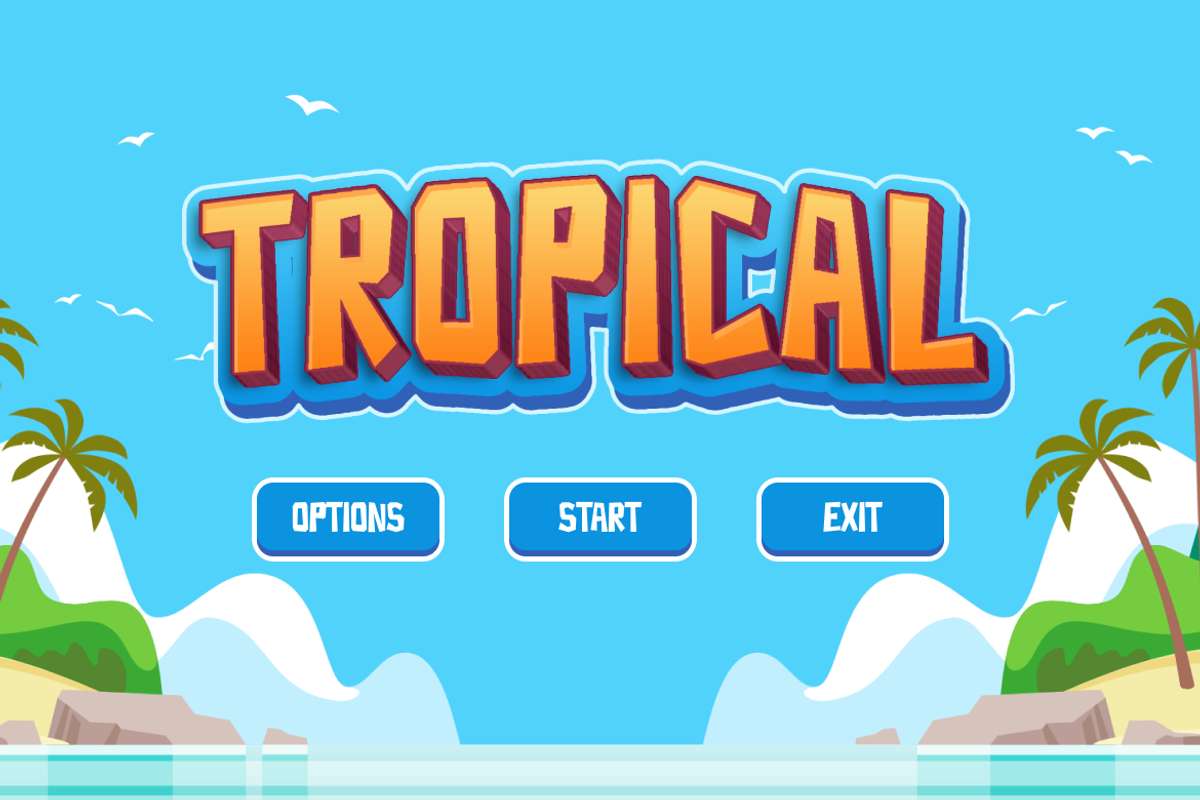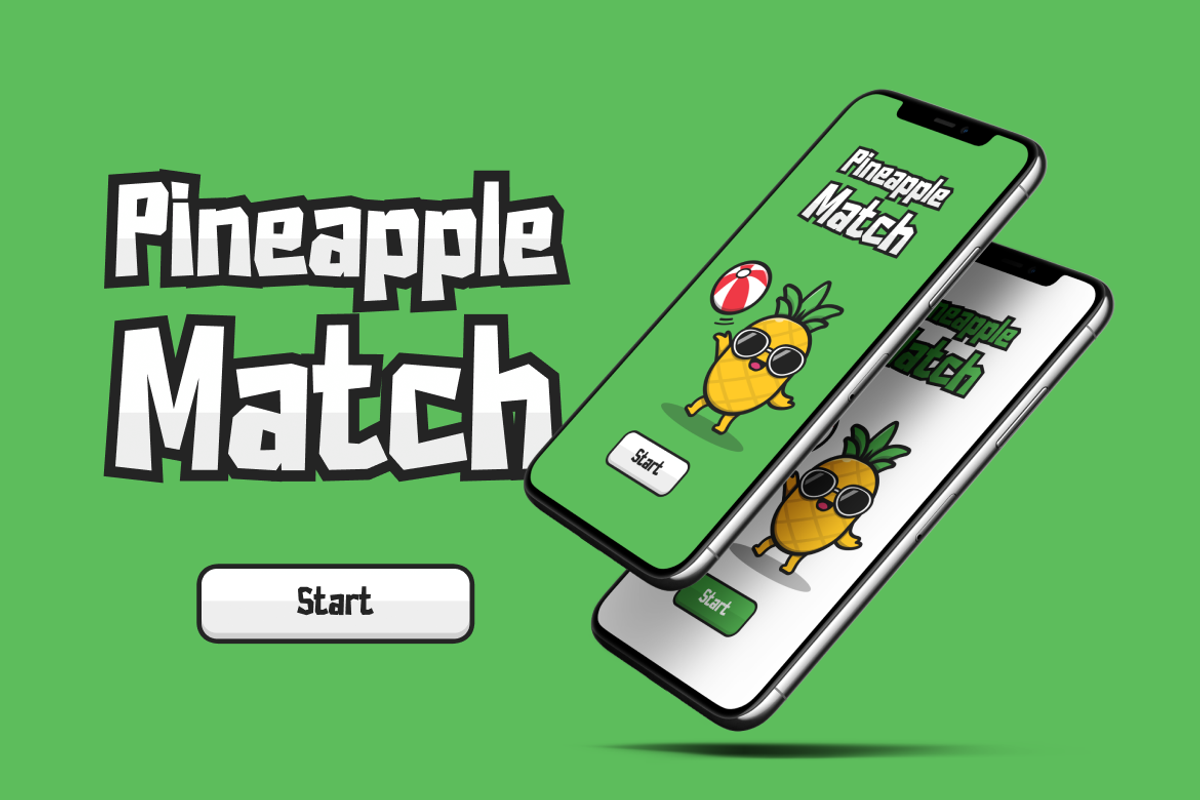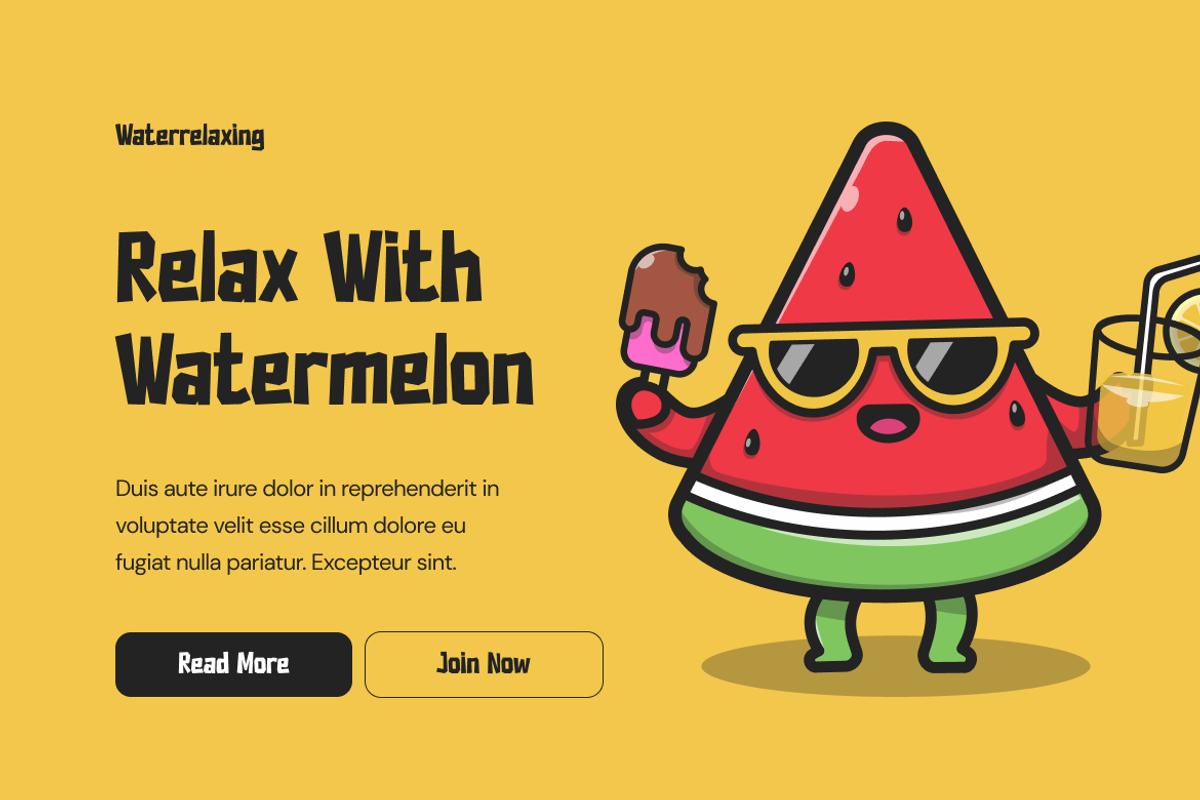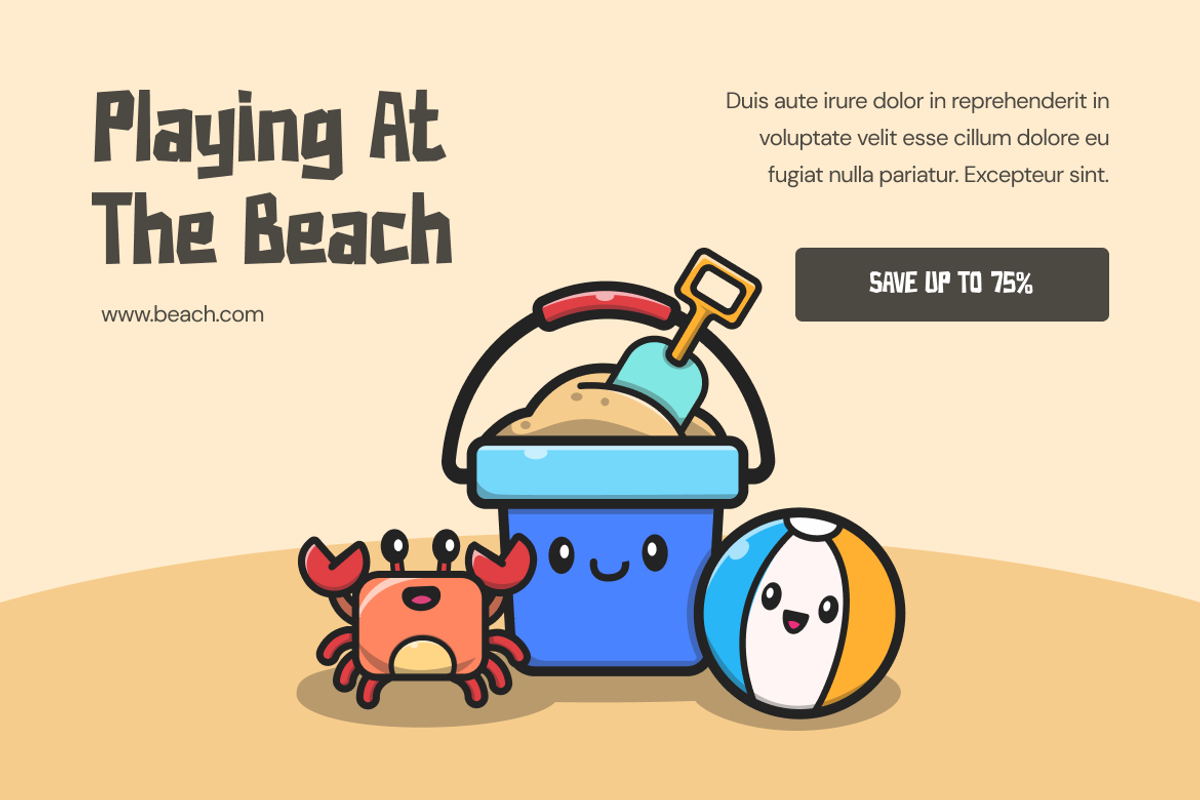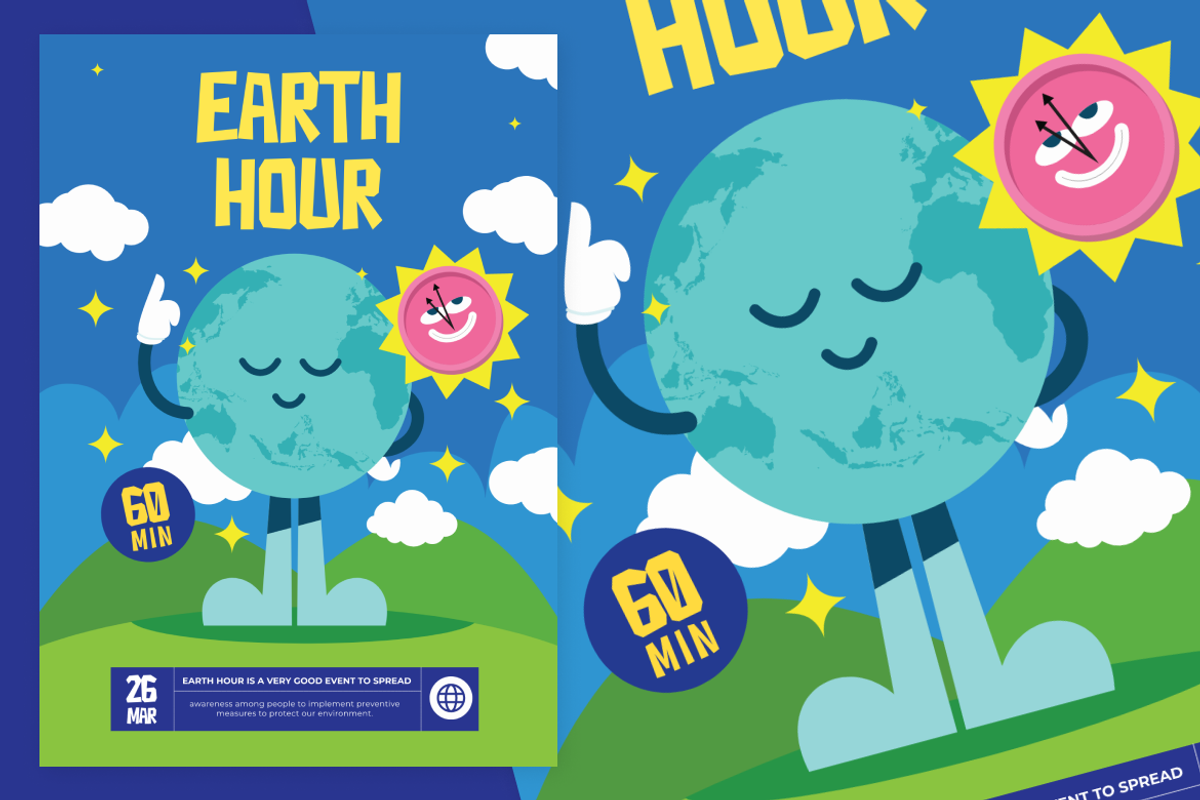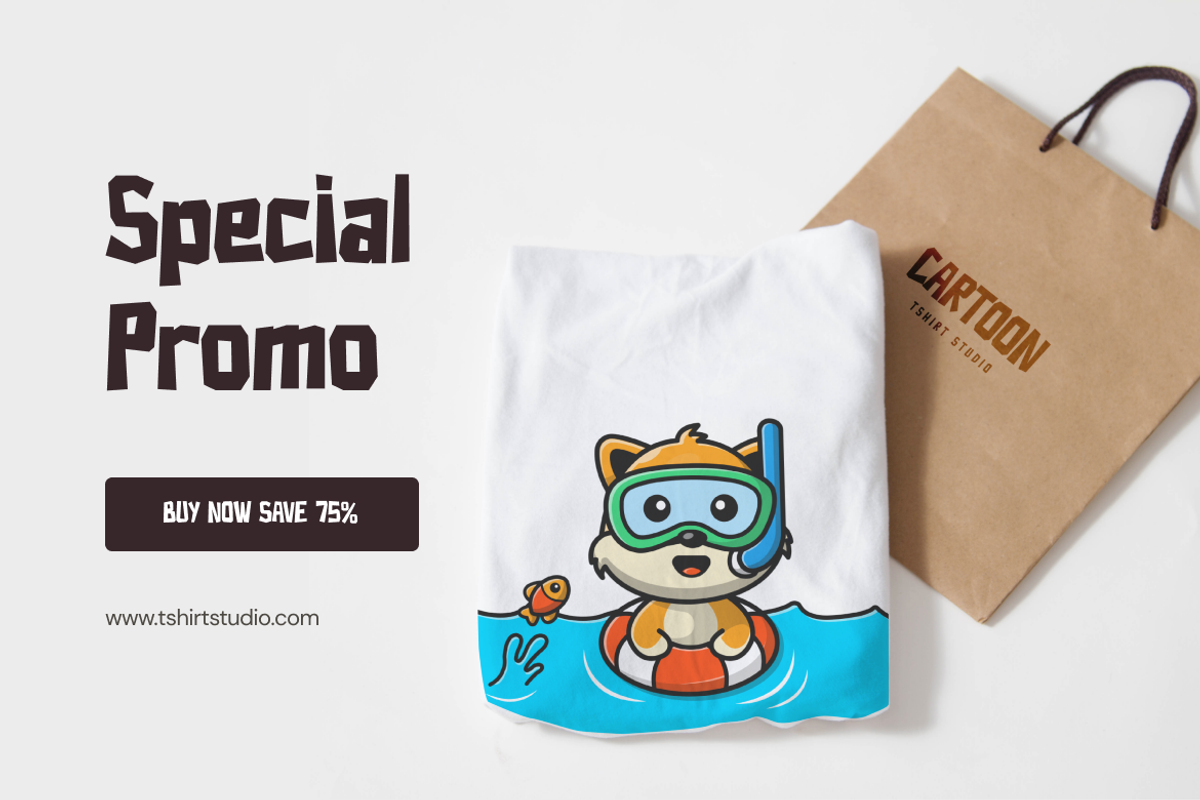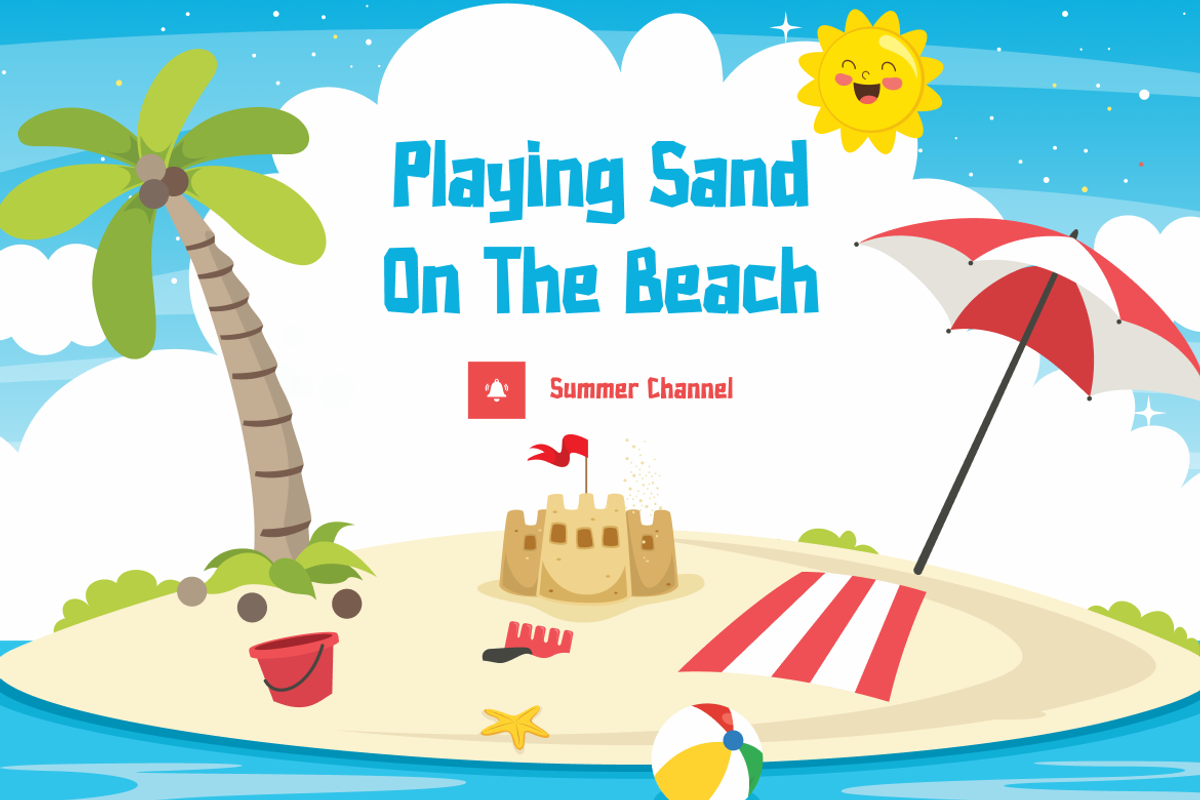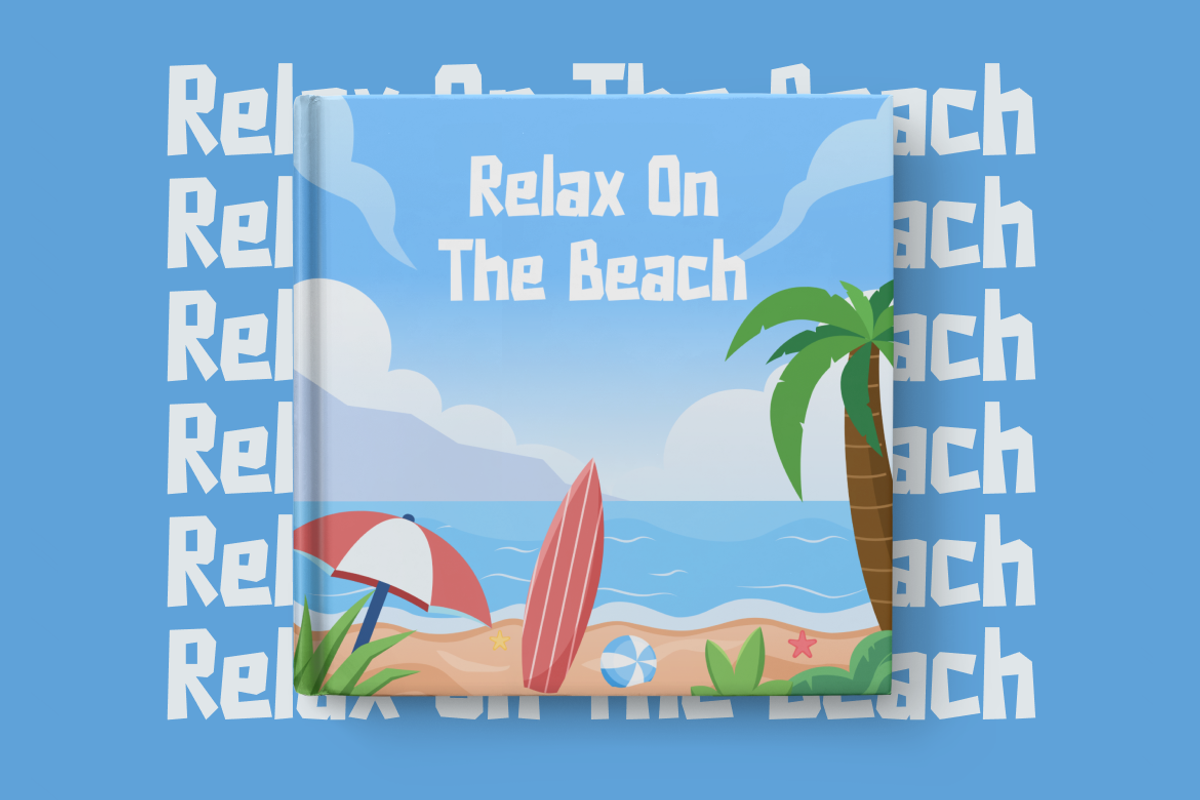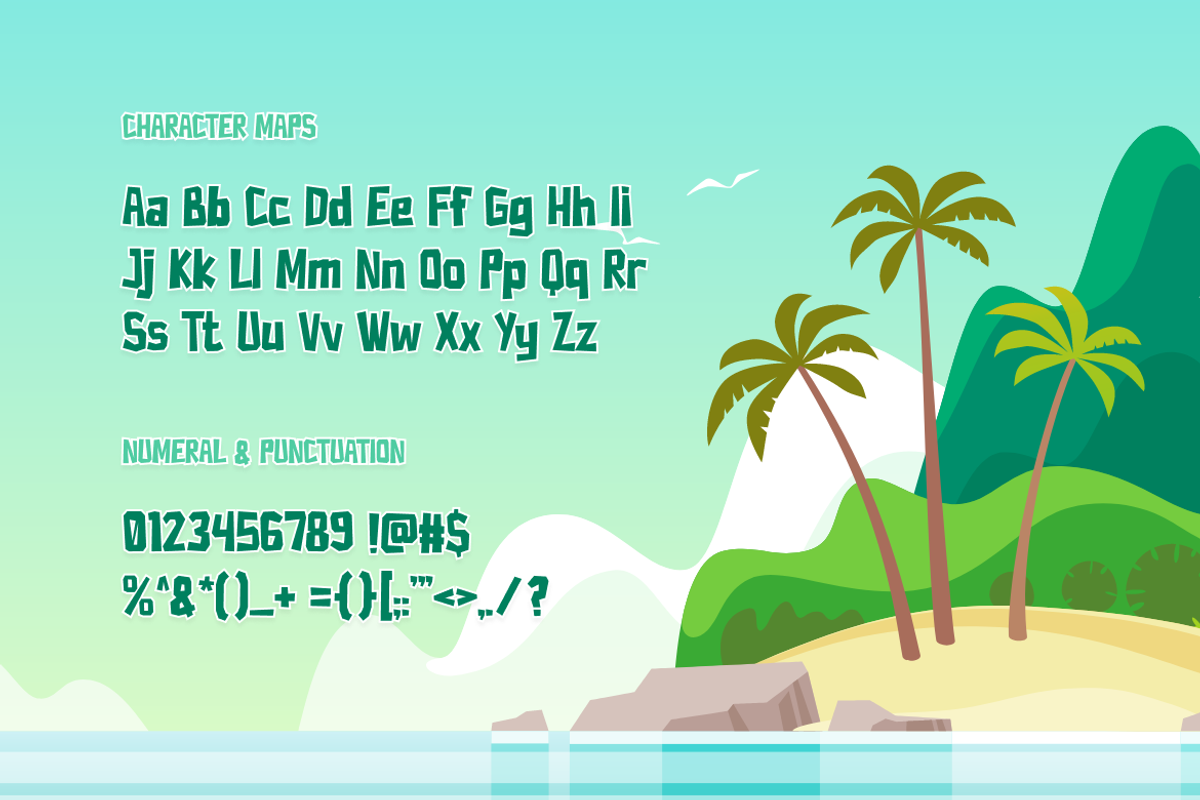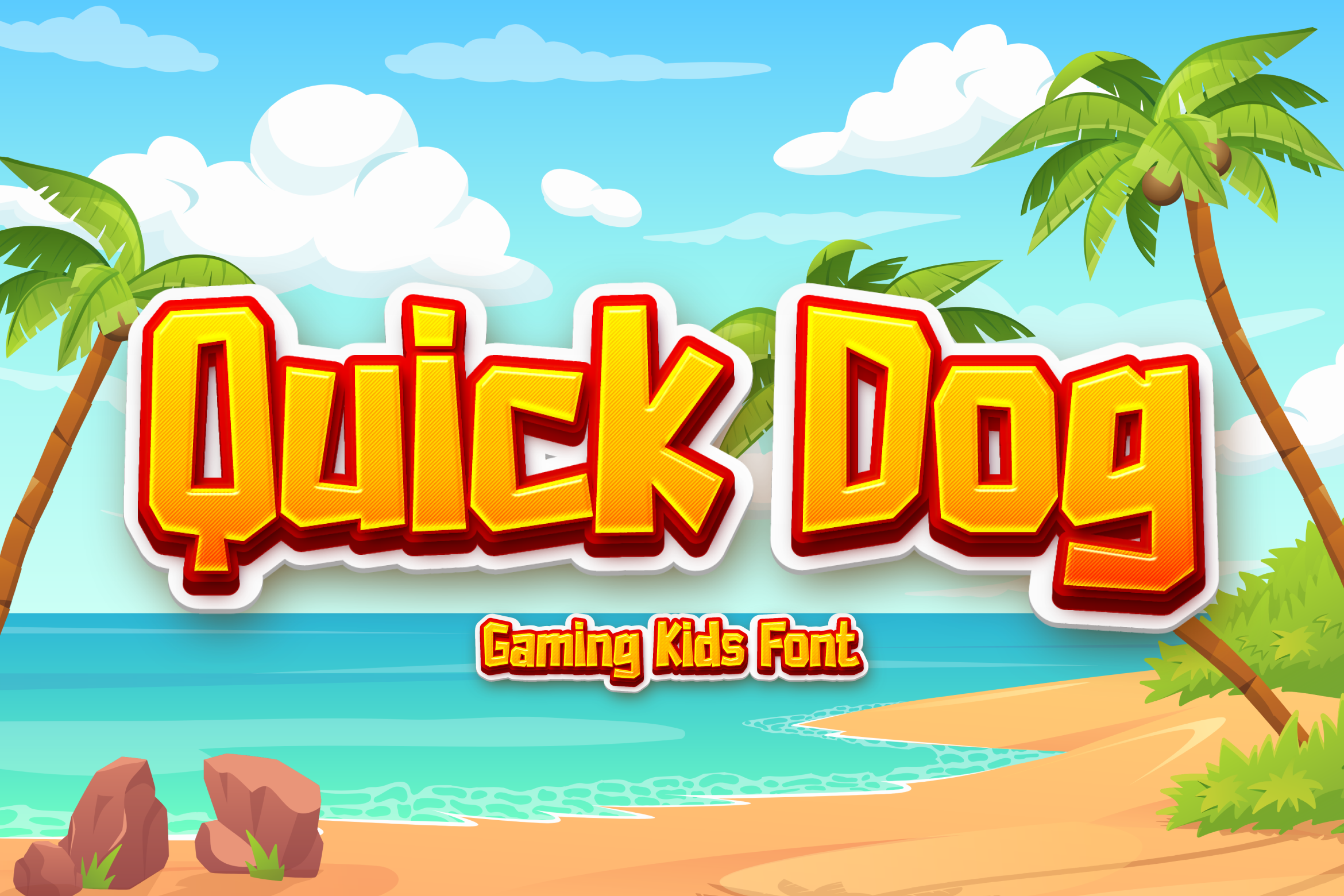
Quick Dog - Gaming Kids Font
Gaming, sophisticated tech, and all about future technology. Quick Dog will give you a perfect amount of it for your projects.
Suit perfectly for future and science segmented magazines, posters, movie titles, music posters, youtube covers, youtube thumbnails, social media page covers, and so on…